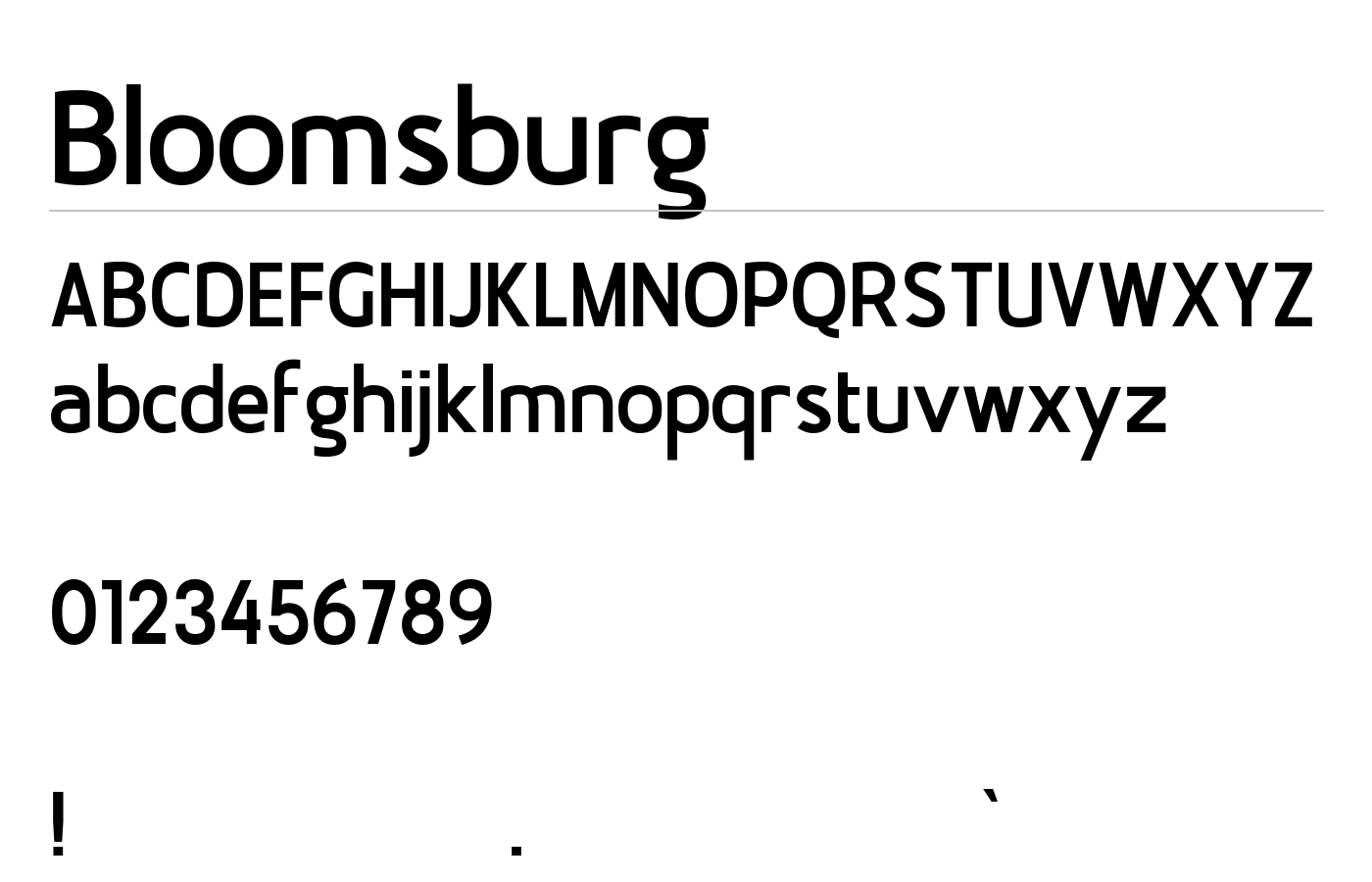
Bloomsburg is a clean, modern sans serif font with a slightly condensed width and a medium x-height that enhances readability. Its strokes are consistent and geometric, giving it a balanced and professional feel, while subtle quirky touches in characters like the lowercase 'g' add personality. This versatile typeface is ideal for clear, contemporary branding, editorial headlines, and web use where a fresh, approachable look is desired.
Bloomsburg Font
About Bloomsburg Font
| Font family | Bloomsburg Font |
| Designer | Dennis Ludlow |